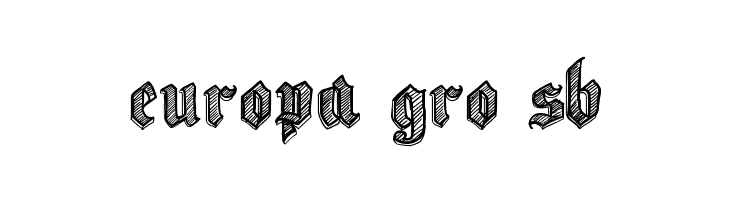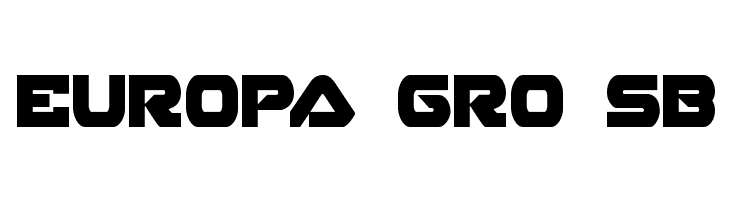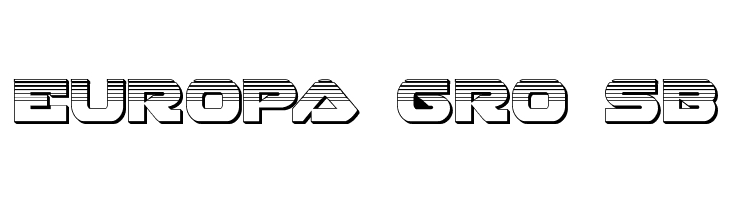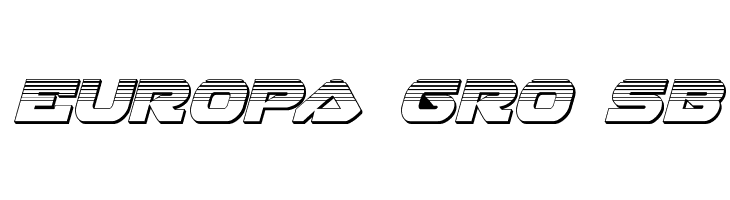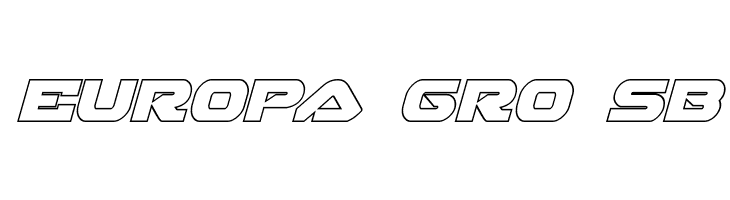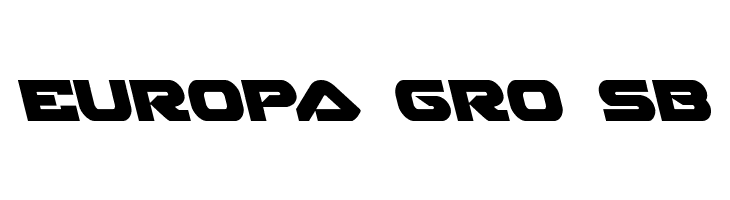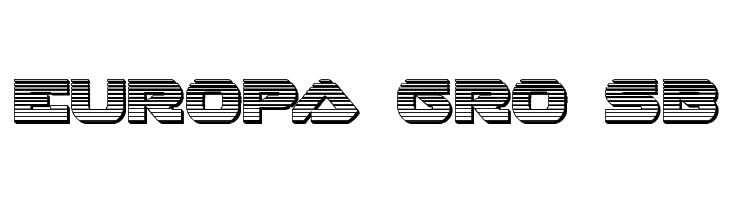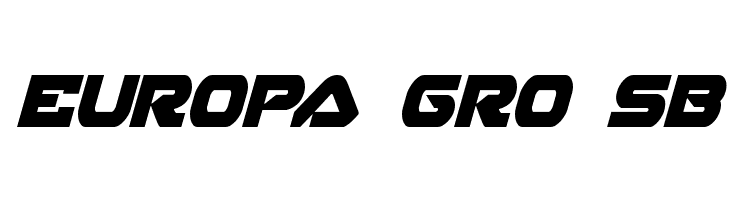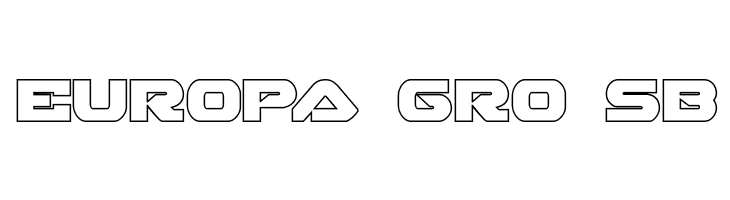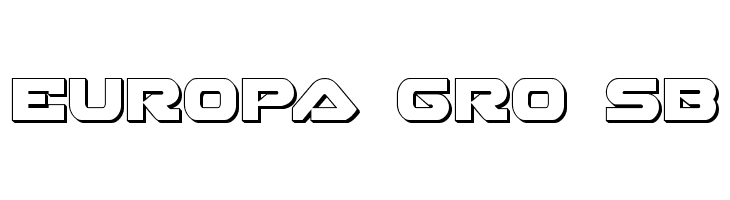
• Sitara Bold
A bold, robust font ideal for impactful and commanding designs.
• Sitara Bold Italic
A bold and italic font with high contrast and strong presence.
• Sitara Italic
An elegant italic serif font with refined strokes and balanced proportions.
• Sitdown
A bold, geometric font with an industrial and modern feel.
• Sitruunahyeena
A bold, distressed font with a vintage, industrial feel.
• Sitruunahyeena
A bold, distressed font with a stamped, grunge aesthetic.
• Skater Girls Rock
A bold, playful font with rounded characters and a youthful vibe.
• Skater Girls Rock
A bold, playful font with rounded characters and a youthful vibe.
• Sketch Gothic School
A bold, sketch-like Gothic font with intricate, hand-drawn details.
• Sketch Major
A creative and eclectic display font with unique patterns and textures for each character.
• Skinny Zebra
A playful, bold outline font with a whimsical and energetic style.
• Skinny Zebra 2
A bold, playful font with a zebra-like pattern and strong contrast.
• Skyhawk
A bold, futuristic font with geometric and angular design.
• Skyhawk 3D
A bold, 3D geometric font with a futuristic and outlined design.
• Skyhawk 3D Italic
A bold, 3D italic font with a futuristic and dynamic style.
• Skyhawk Chrome
A bold, futuristic font with a distinctive striped pattern and geometric shapes.
• Skyhawk Chrome Italic
A bold, italicized font with a futuristic chrome-striped design.
• Skyhawk Condensed
A bold, geometric, and condensed font with a futuristic style.
• Skyhawk Condensed Italic
A bold, italicized, and condensed font with a dynamic, modern style.
• Skyhawk Expanded
A bold, futuristic font with wide, angular characters and a geometric style.
• Skyhawk Expanded Italic